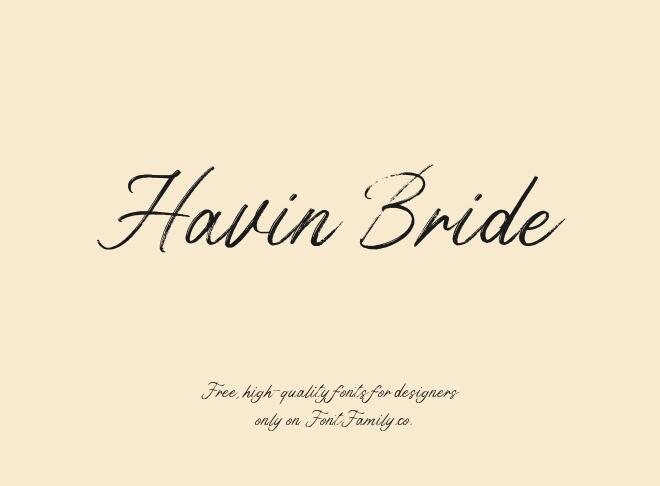
Havin Bride Font
Havin Bride Font, designed by Creative Fabrica, is an elegant, handwritten script font with a touch of decorative flair. Its unique character design and flowing curves make it a standout choice for wedding invitations, greeting cards, and personal branding. It's a versatile font that can complement a wide range of design styles, from classic to modern. Its distinct style can be compared to fonts like 'Brush Script' and 'Edwardian Script', but Havin Bride Font offers a more personal, handcrafted touch. This font is a great choice for designers looking to add an element of sophistication and elegance to their work.